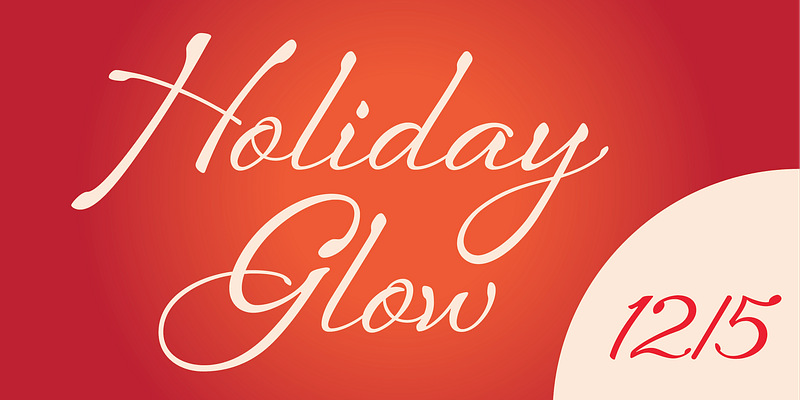
Sheila strikes the perfect balance of approachable and aspirational. Sheila’s airy, breezy letterforms shine in settings like inspirational quotes and fashion layouts. Contextual alternates and ligatures lend Sheila natural-looking connections, while 35 swash forms add distinctive flair.